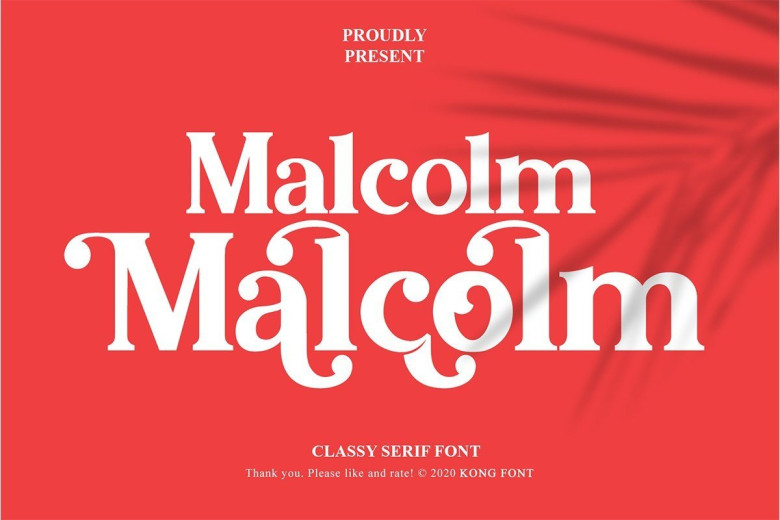
Malcolm Classy Serif Font
Malcolm Classy Serif Font is an awesome font that can look austere and classic or vintage and softer and more pliable thanks to alternatives. They will add charisma, diversity to your project and emphasize your brave decision. Also lowercase ligatures are included in this font, use them and it will also show your personality.
This font has a heavy weight and is perfect for creating logos, headlines, advertising, branding, book covers and magazines, and much more. This font is free for PERSONAL USE. Link to purchase full version and commercial license: HERE